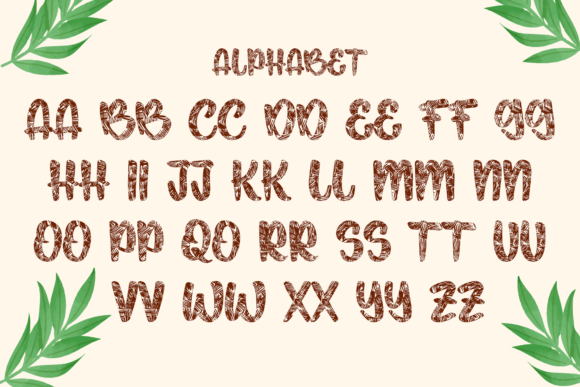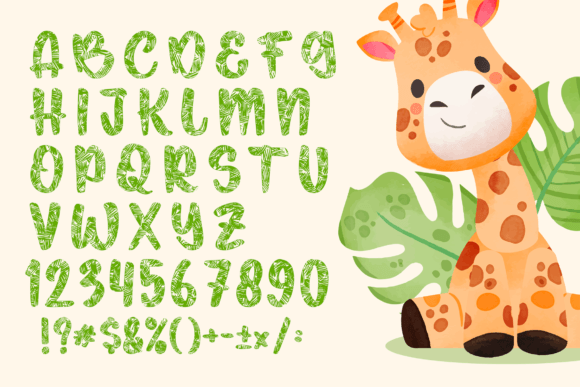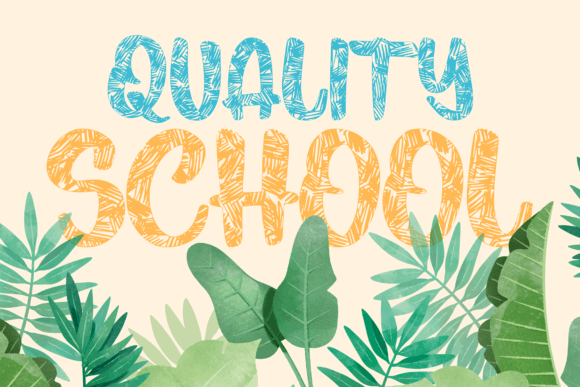
Introduction to Child Tiger Font
Child Tiger is a childish, easy-to-read display font that conveys impeccable friendliness.
Key Features of Child Tiger Font
Why Choose Child Tiger Font?